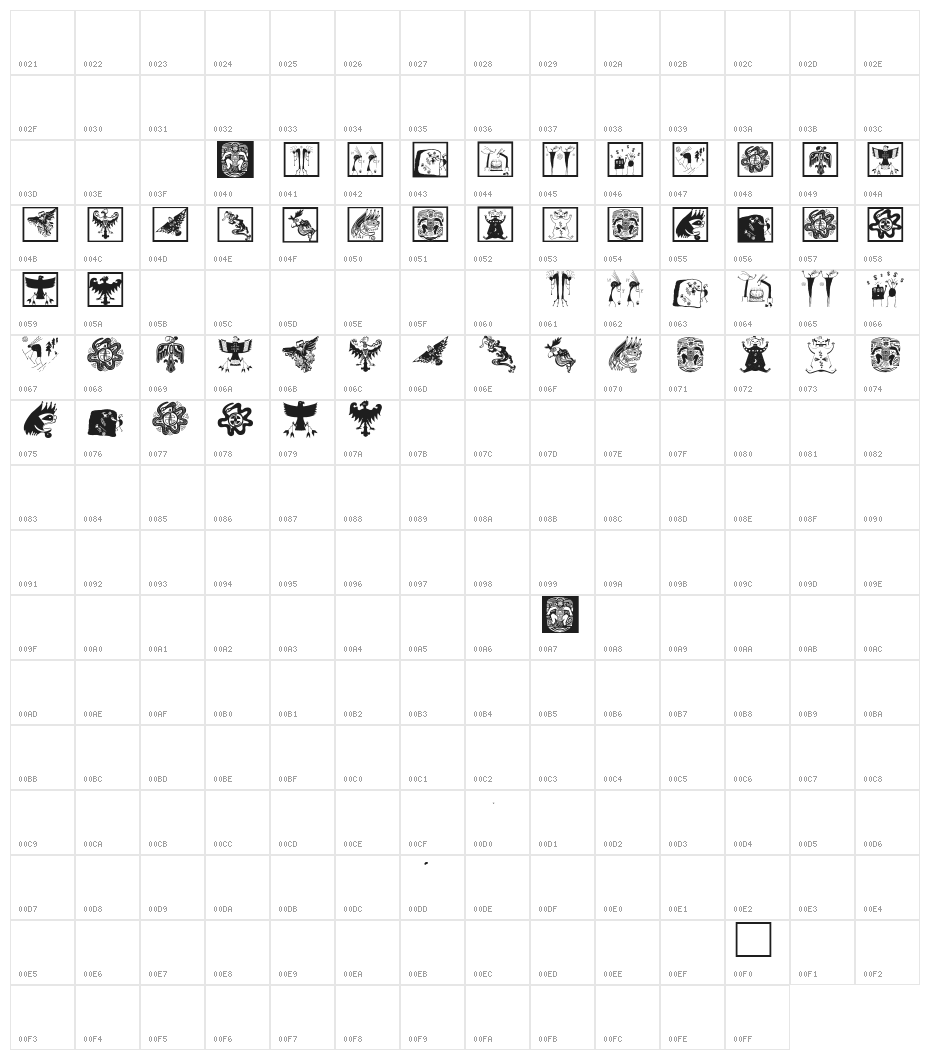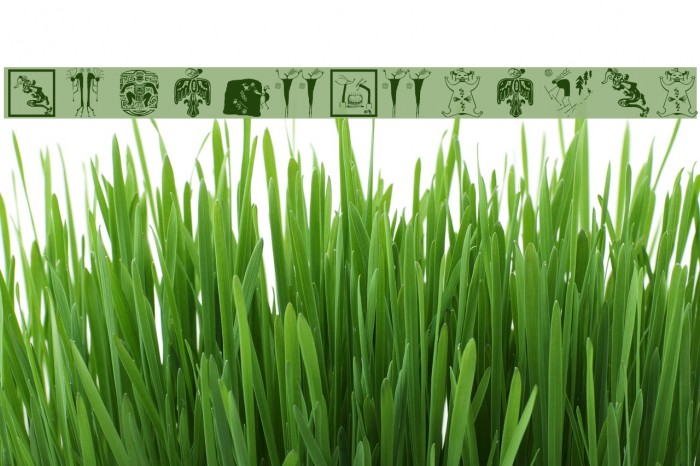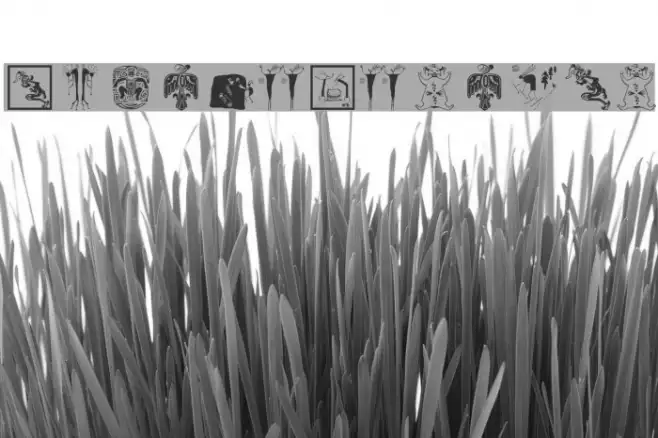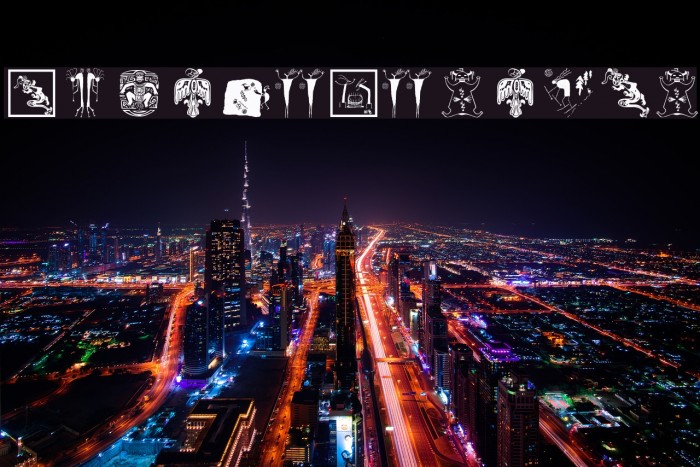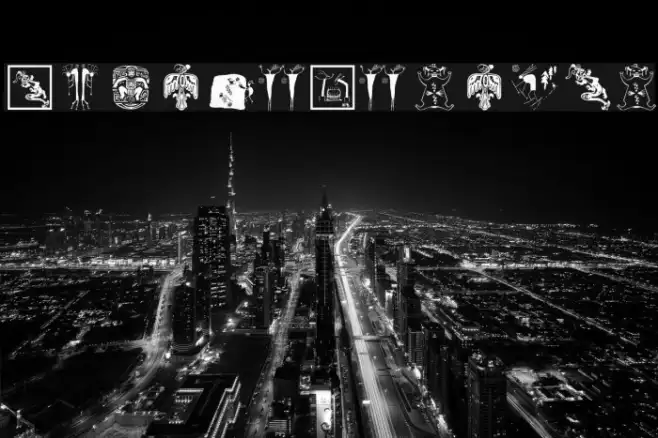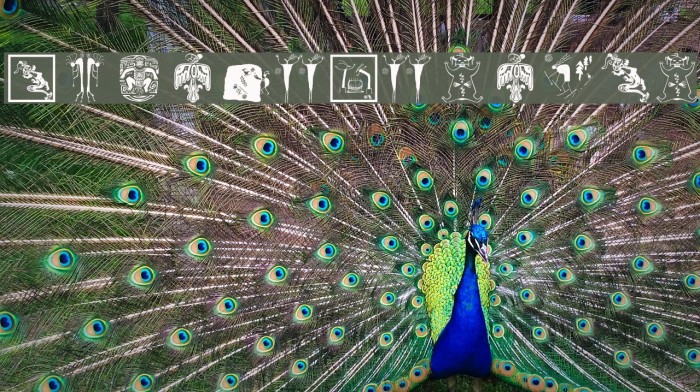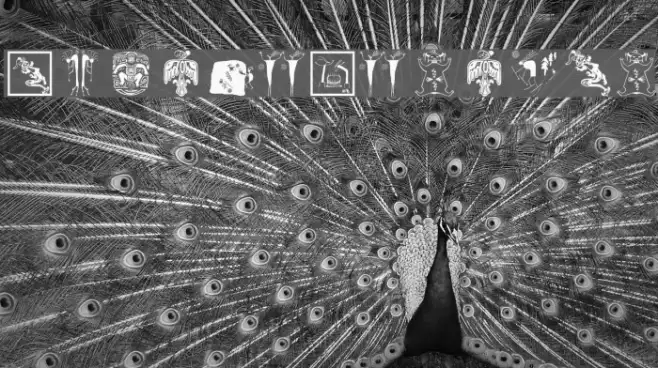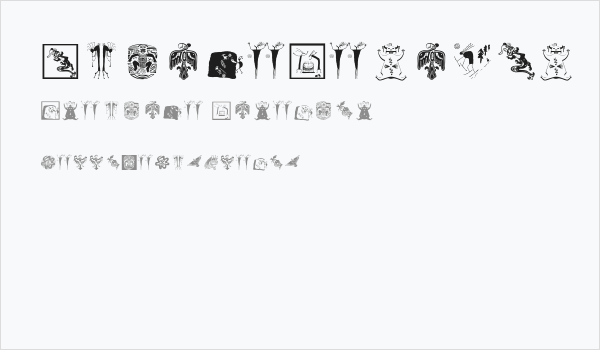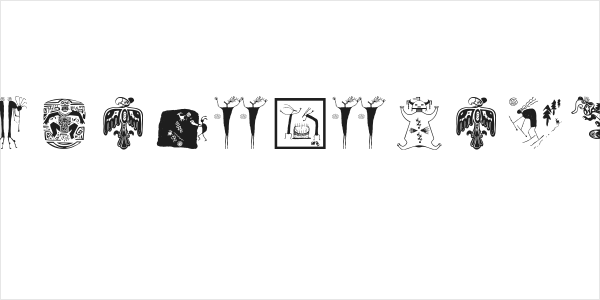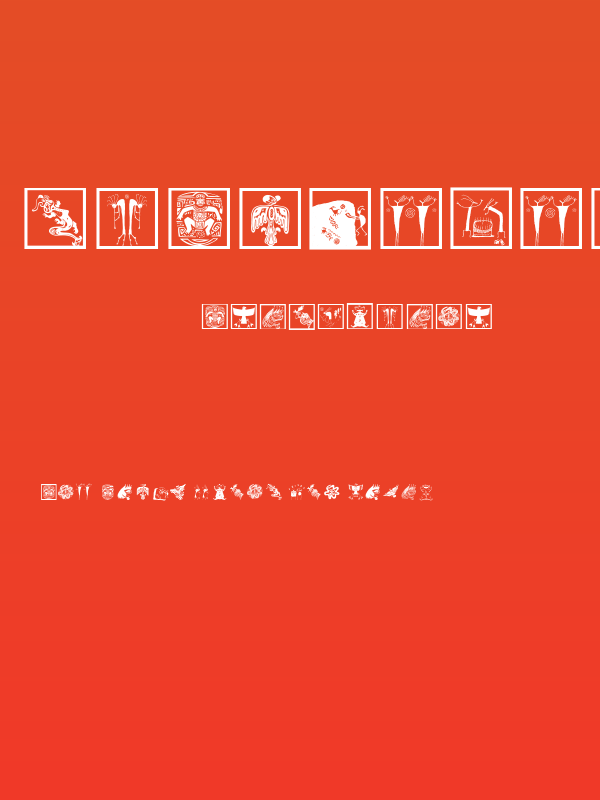
NativeDesigns Font
NativeDesigns Description
This collection features a series of intricate and culturally inspired symbols, each enclosed within a square frame. The designs are highly decorative, showcasing a variety of motifs that resemble traditional art forms. The characters are not typical alphanumeric symbols but rather unique illustrations that convey a sense of heritage and artistic expression. Each symbol is distinct, with detailed line work and patterns that suggest a deep cultural significance. The overall style is bold and expressive, making it suitable for projects that aim to incorporate a touch of traditional artistry.
| Use Case | Logos, Artistic projects, Cultural displays |
| Proposed Projects | Ideal for cultural projects, artistic designs, branding that requires a traditional touch, or educational materials about indigenous art. |